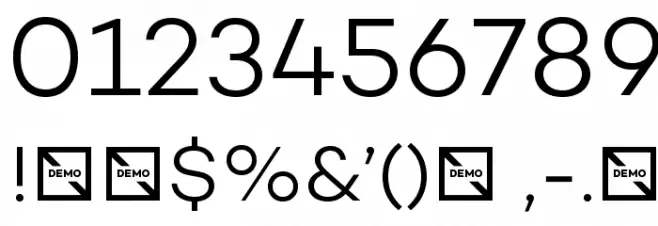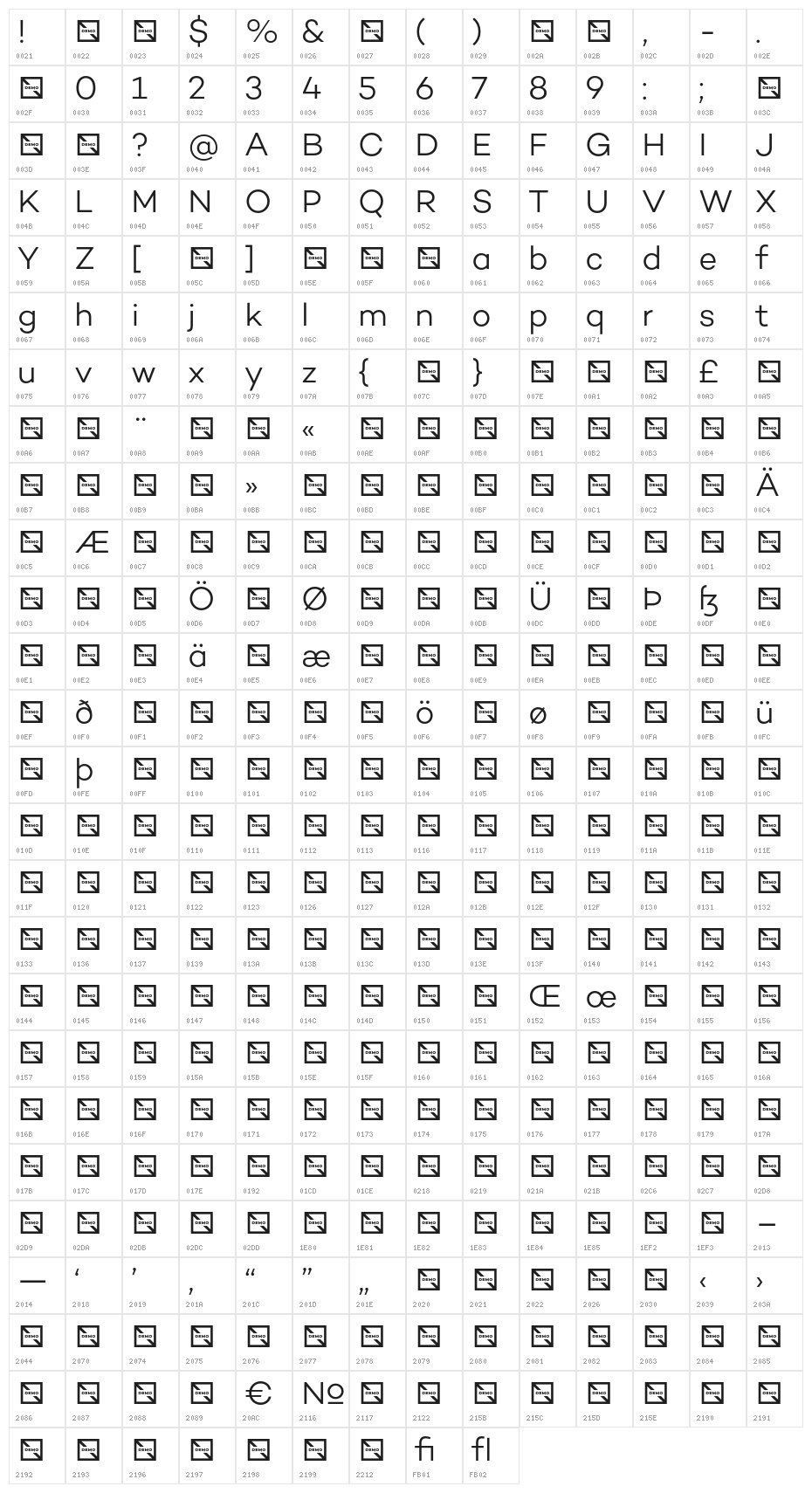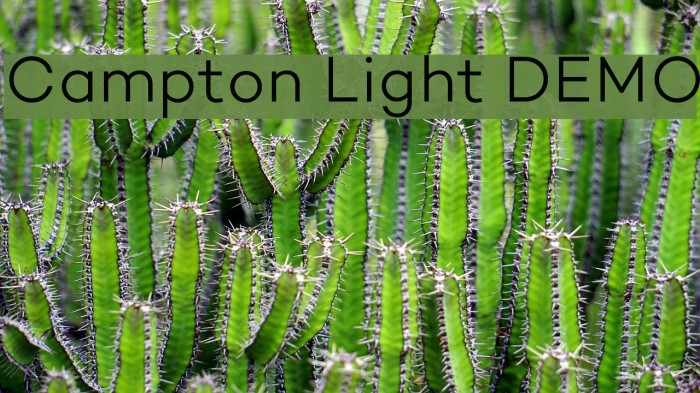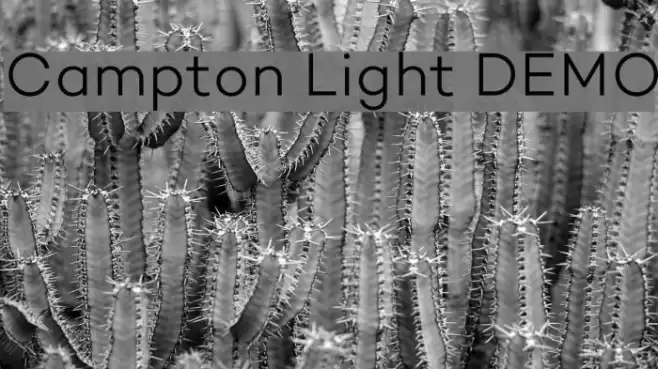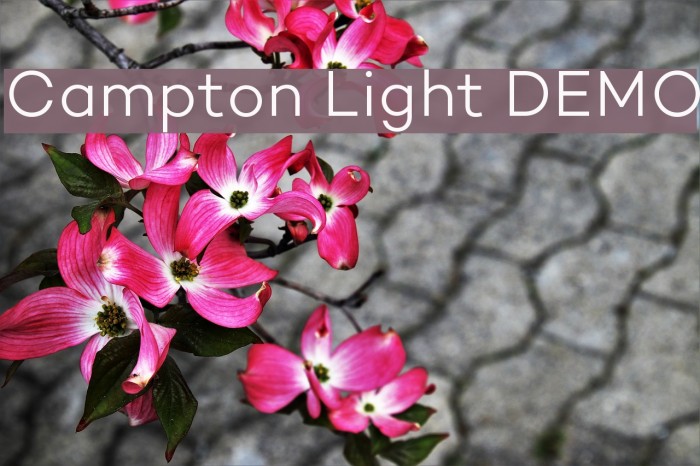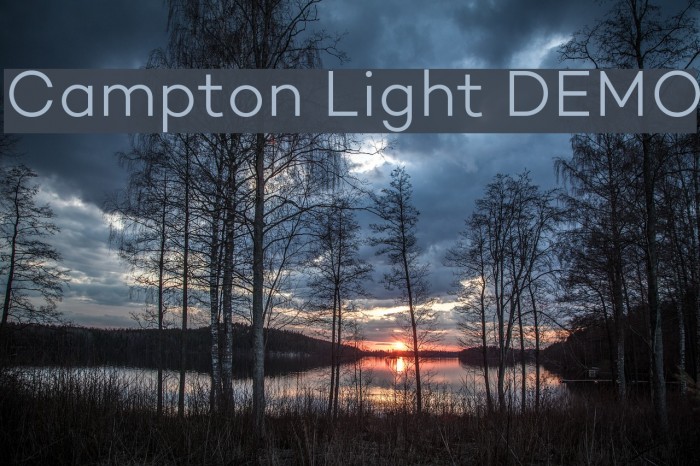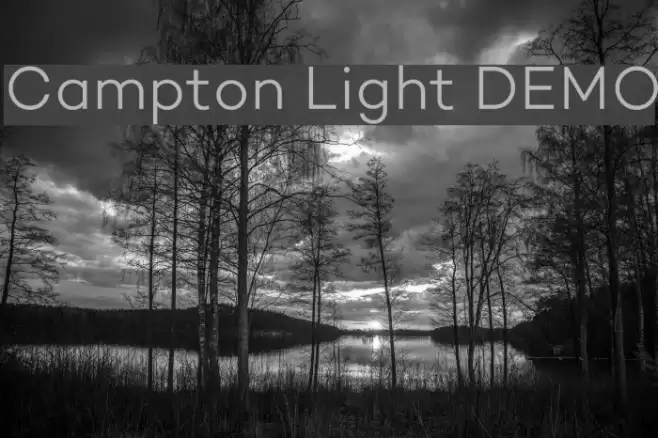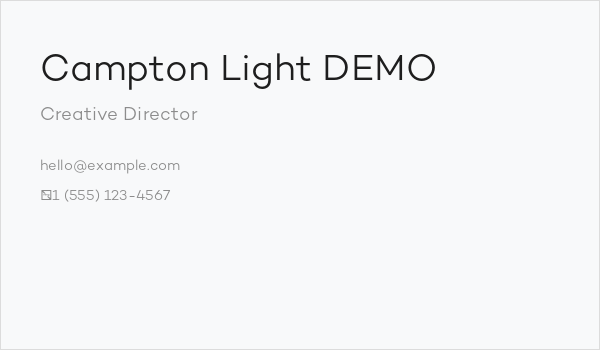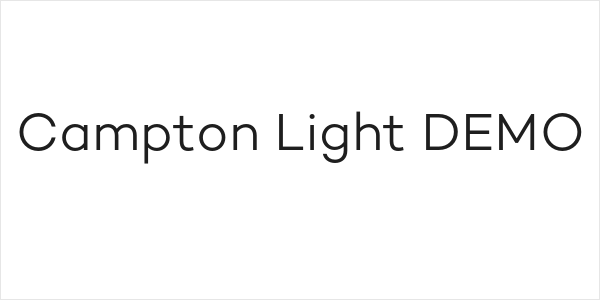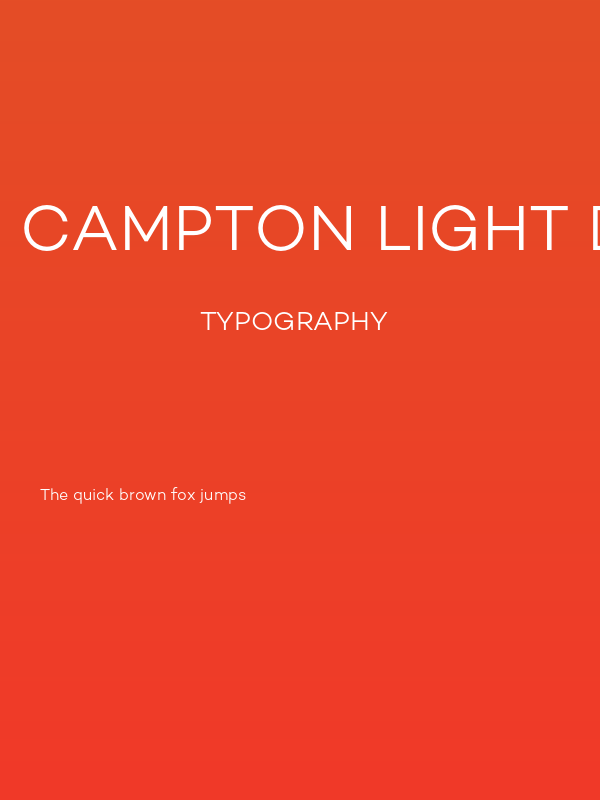
Campton Light DEMO Font
Campton Light DEMO Description
This font features a clean and modern sans-serif design with a geometric structure. The characters are well-balanced, offering a harmonious appearance that is both professional and approachable. The uppercase letters are bold and assertive, while the lowercase letters maintain a friendly and inviting tone. The numerals are clear and easy to read, making them suitable for a variety of applications. Special characters are included, providing versatility for different design needs. The overall aesthetic is minimalistic, making it ideal for contemporary projects.